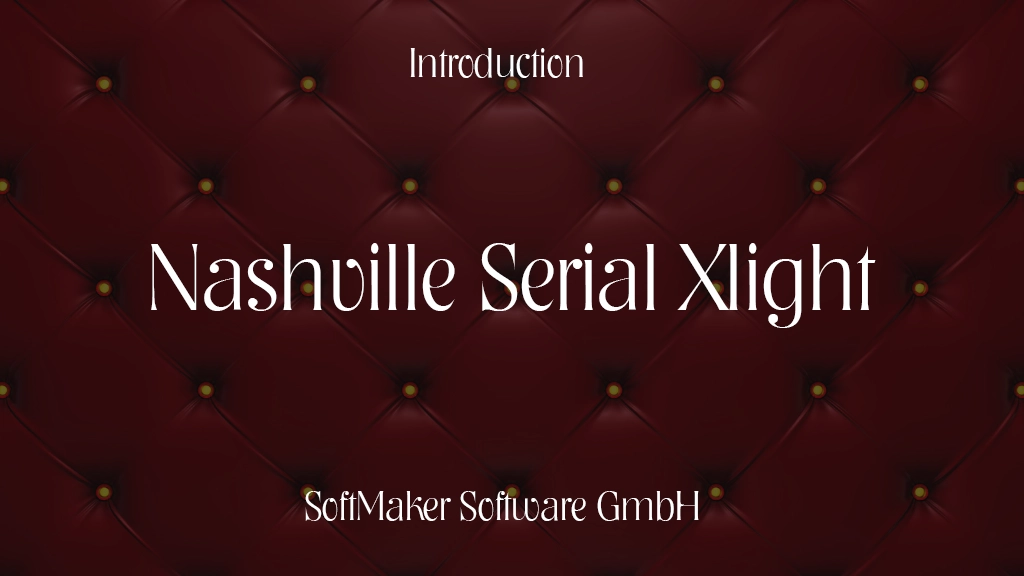
The Nashville Serial Xlight font is a fun and stylish font that is perfect for a variety of designs. It is free for personal use and was designed by SoftMaker Software GmbH. The font subfamily is Regular.